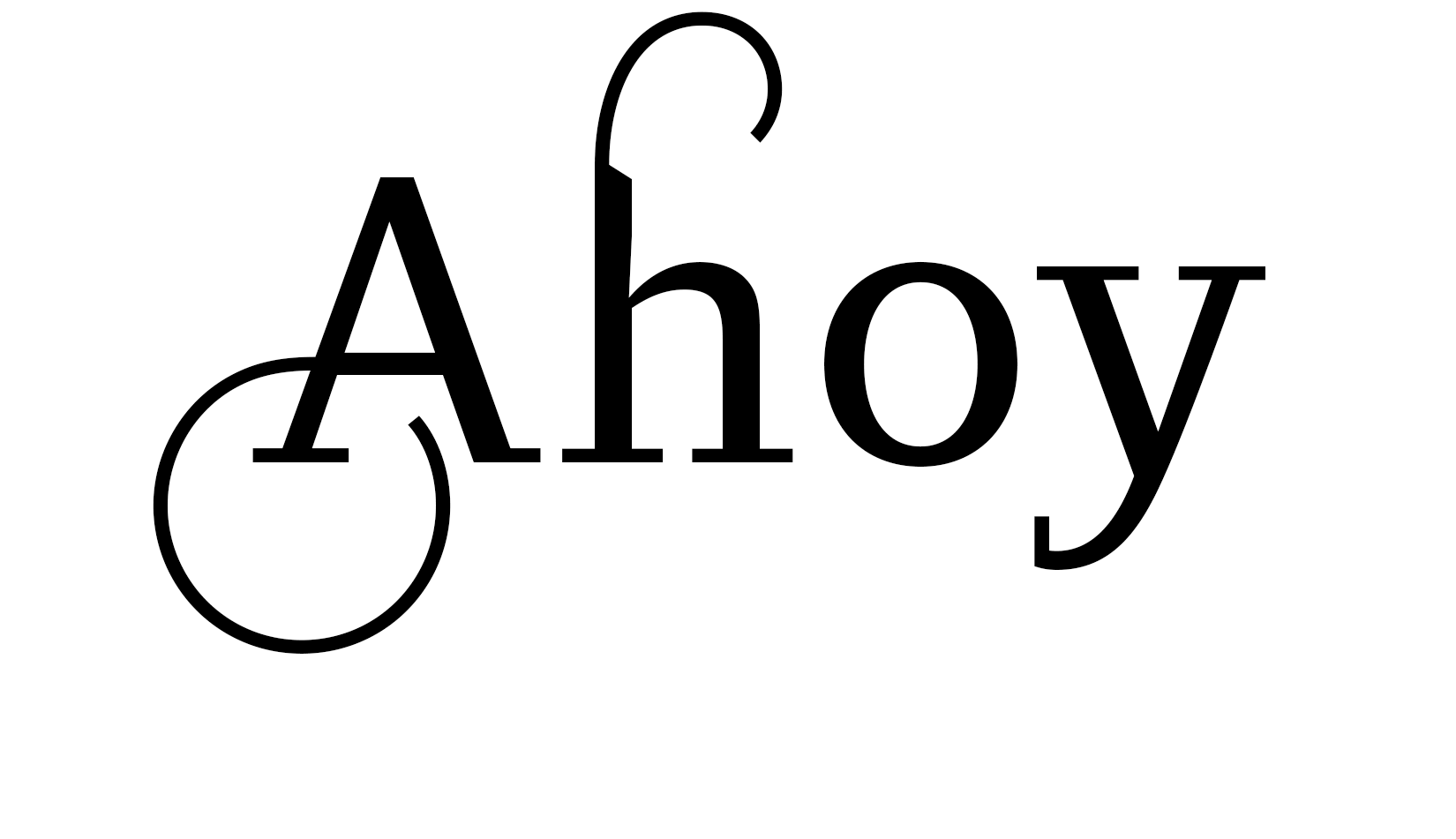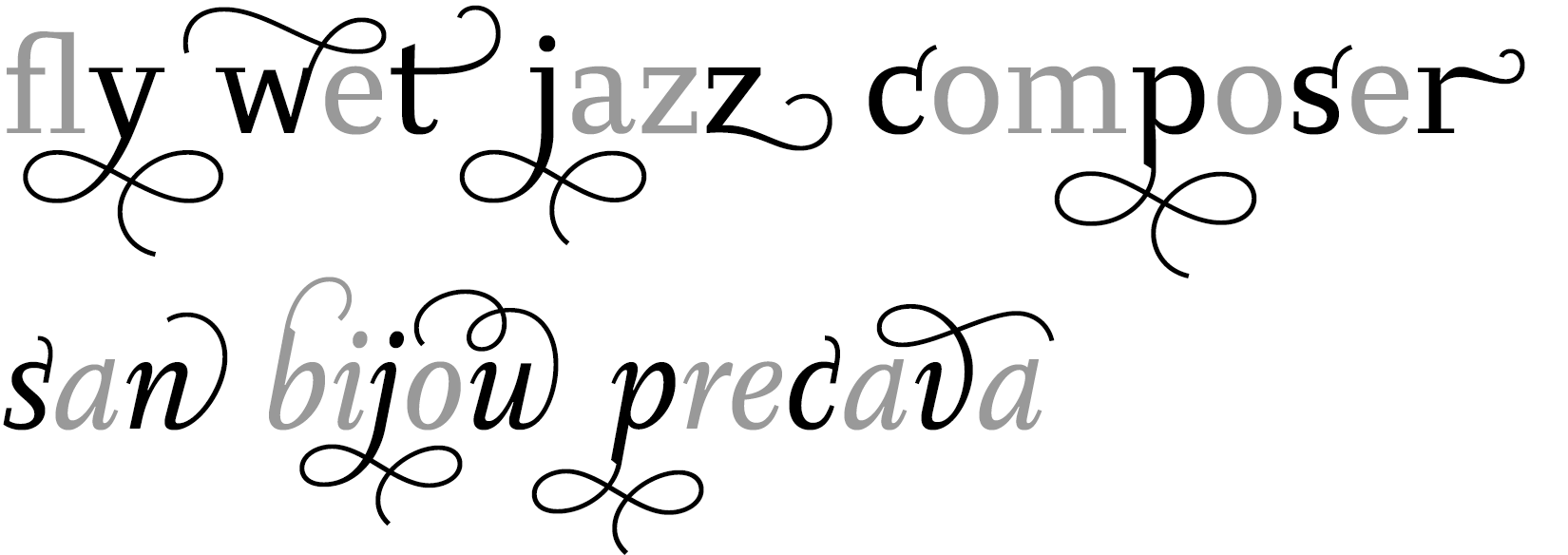
Each weight of Diogenes Decorative comes in 7 different styles each containing various swashes and alternate characters, accessible directly on the keyboard or via Open-Type features.
Uppercase
Uppercase characters can have 2 kinds of swashes: Swashes based on circles and more flourishing swashes. On the left you see Diogenes Decorative Regular 1, on the right Diogenes Decorative Regular 2.
Lowercase
Lowercase characters with ascenders and descenders typically also have swashes. On the left you see Diogenes Decorative Regular 1, on the right Diogenes Decorative Regular 2.
Small Caps
For each weight there are three Small Caps fonts: Small Caps 1 and Small Caps 2 only have swashes in the uppercase characters. All Small Caps fonts have no uppercase characters, but each have two sets of ornate small capitals.
Alternate characters
Diogenes Decorative fonts also contain various alternative characters accessible via the Open Type features: upright fonts No. 2 contain alternatives for c, e, j, k, p, q, r, s, t, v, w, x, y, z. Italic No. 1 for a, i, n, m, t, u. Italic No. 2 for a, c, j, p, q, n, m, r, s, t, u, v, w, y. All Small Caps fonts contain alternatives for a, k and r.
Individual swashes
Diogenes Decorative fonts also include separate swashes for word endings. They are not bound to one specific glyph but fit on different characters. The image above shows an upright font (top) and a small caps font (bottom). Italics do not have individual swashes.